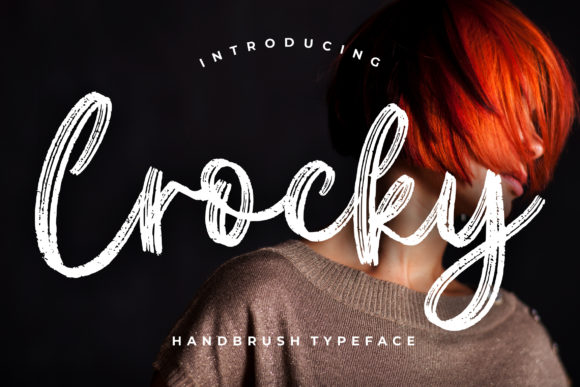
Introducing Crocky Font: The Exquisite Script Font for Unforgettable Creations
In the realm of fonts, Crocky Font stands out as a true masterpiece, a symphony of curves and strokes that dances across the page, leaving a trail of elegance and charm. This exceptional font, hailing from the talented hands of CreatypeStudio, is a testament to the power of creativity, a work of art that transforms words into visual poetry.
With Crocky Font, you hold the key to unlocking a world of possibilities, a world where your creative visions come to life in stunning fashion. Its meticulously crafted characters, reminiscent of the finest calligraphy, flow effortlessly, capturing the essence of romance, sophistication, and timeless beauty.
Whether you're a seasoned designer or a creative enthusiast, Crocky Font is your perfect companion, guiding you through a journey of artistic expression. Unleash your imagination and create breathtaking wedding invitations that exude elegance, heartfelt stationary art that touches the soul, captivating social media posts that turn heads, and an array of other projects that leave a lasting impression.
Beyond its undeniable aesthetic appeal, Crocky Font is a versatile powerhouse, effortlessly adapting to a myriad of creative endeavors. Its unique yet versatile style dances across different genres, from the whimsical to the formal, the playful to the profound. With Crocky Font by your side, you'll find yourself effortlessly creating designs that resonate with audiences, leaving them spellbound by your artistic prowess.
So dive into the world of Crocky Font, let your creativity soar, and experience the joy of transforming ordinary words into extraordinary works of art. Embrace the beauty of this exquisite script font and embark on a creative adventure where your imagination knows no bounds.